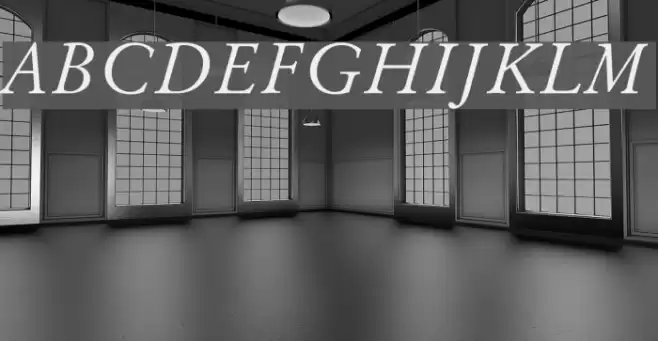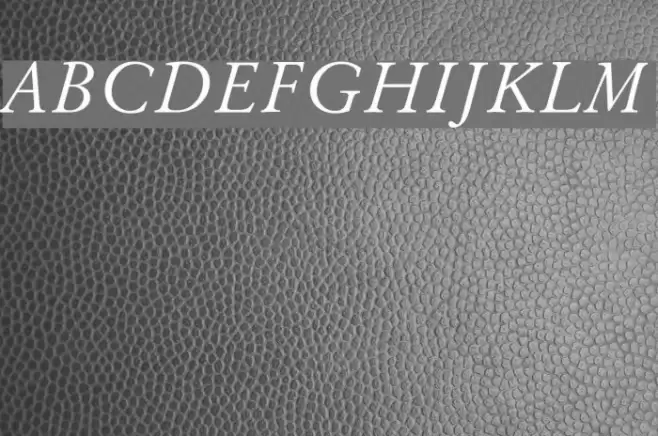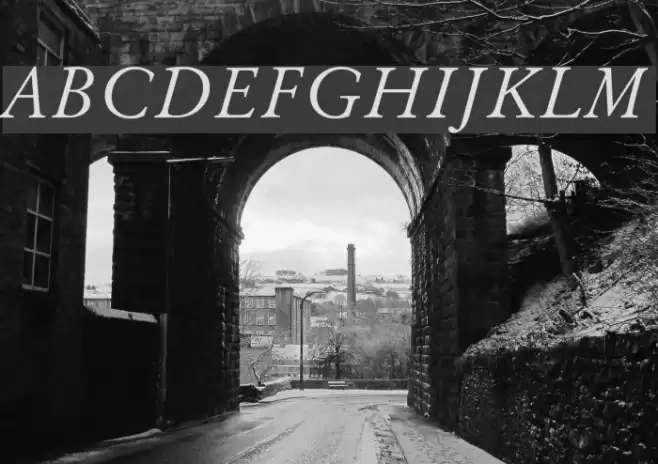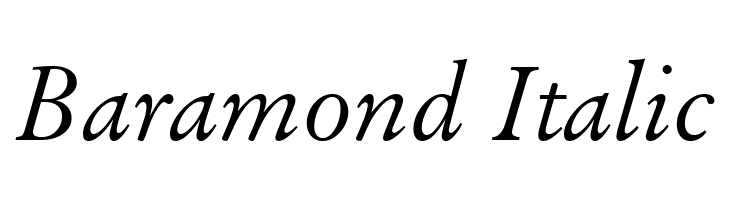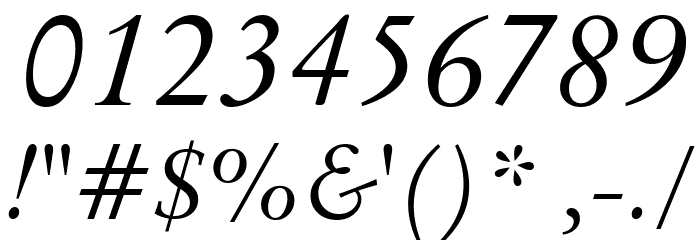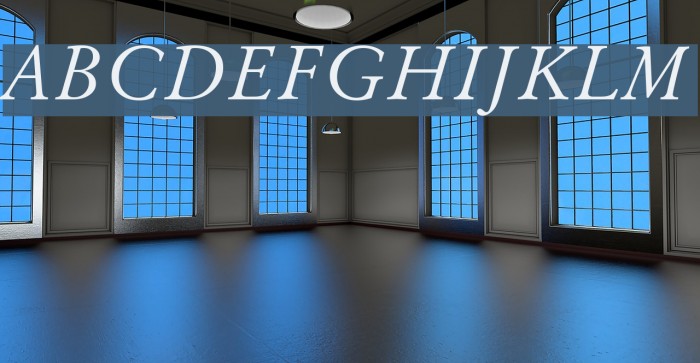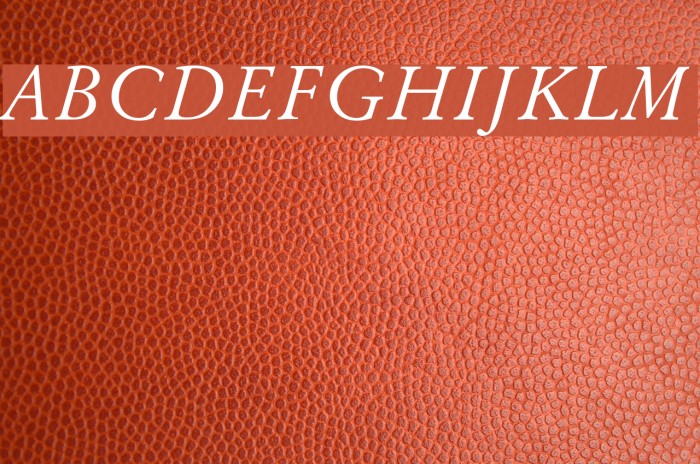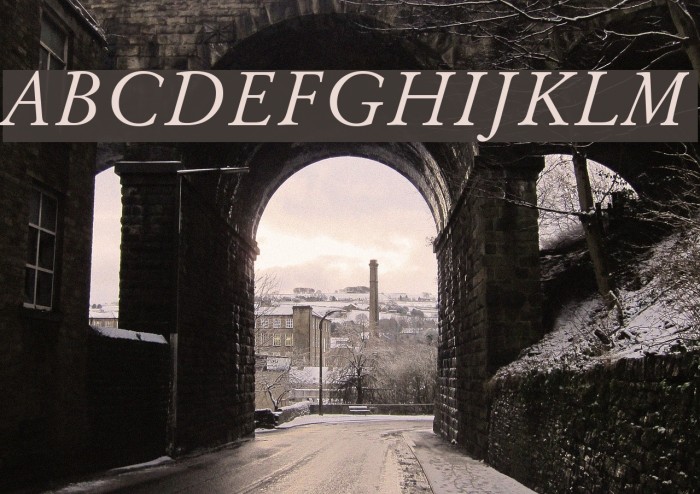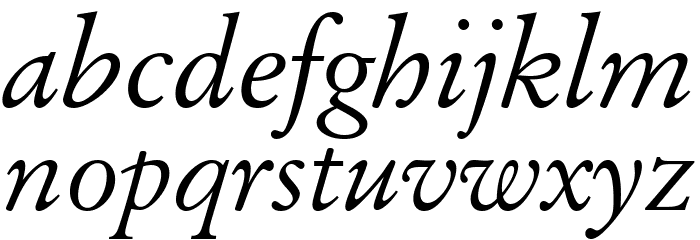
Baramond Italic
This elegant serif typeface features a classic italic style with smooth, flowing lines and a refined appearance. The characters exhibit a slight slant, enhancing the traditional aesthetic while maintaining readability. The uppercase letters are tall and stately, while the lowercase letters have a graceful, cursive quality. The numerals are proportional and blend seamlessly with the alphabet, and the special characters are designed with the same attention to detail. The font's overall look is sophisticated, making it suitable for formal and literary applications.
An elegant serif typeface with a classic italic style and refined appearance.
- Proposed Projects: Ideal for book covers, formal invitations, elegant branding, and editorial design.
- Category: Serif
- Overall Style: Classic